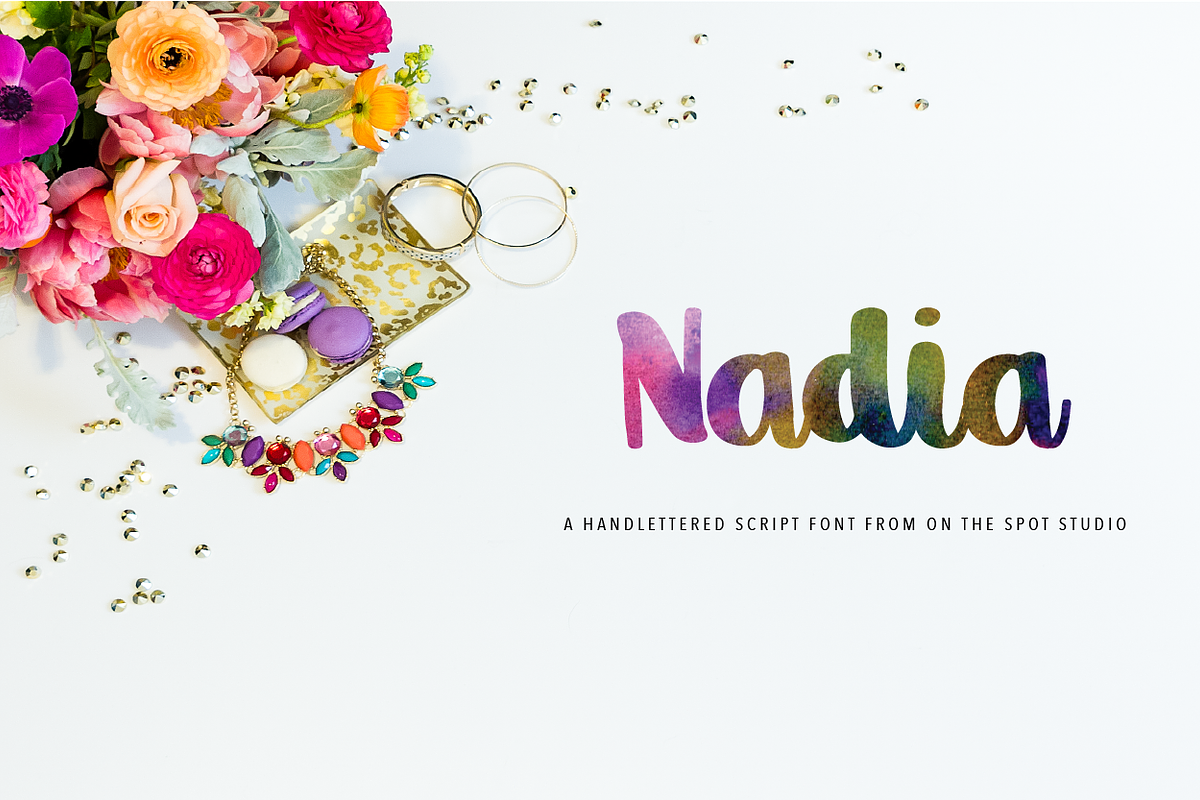
Nadia Script Font Free Download is an elegant, flowing script typeface designed to bring beauty and grace to any project. With its smooth curves and natural handwriting feel, this font is perfect for wedding invitations, feminine branding, social media graphics, logo design, and romantic packaging.
Its modern calligraphy style offers both charm and readability, making it a favorite for projects that require a personal, handcrafted touch. Whether you're designing for fashion, lifestyle, or heartfelt messages, Nadia Script adds warmth and sophistication.
Designers love Nadia Script for its versatility across print and digital platforms and its timeless appeal. Want to elevate your designs with effortless elegance? Download Nadia Script Font Free Download and give your work a signature look full of personality and polish.